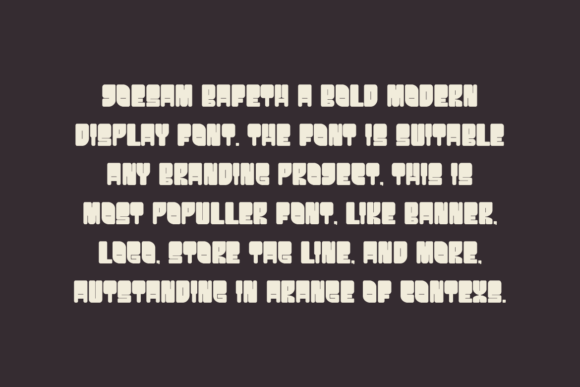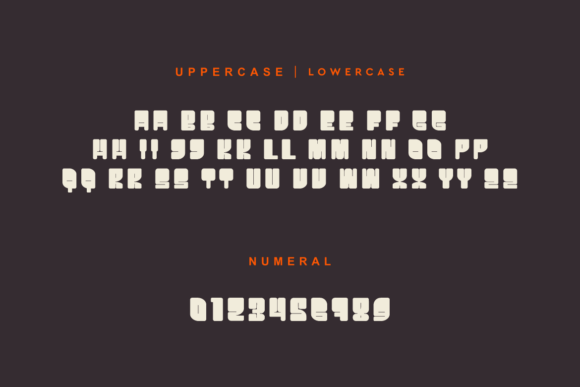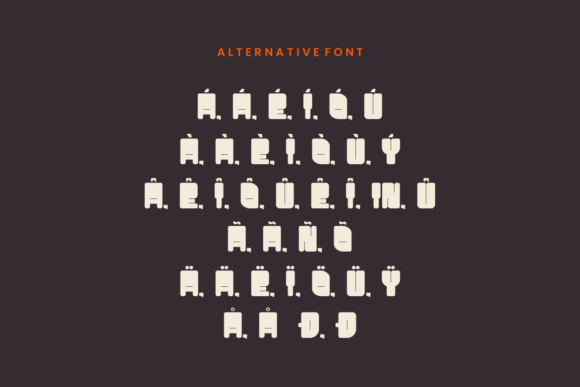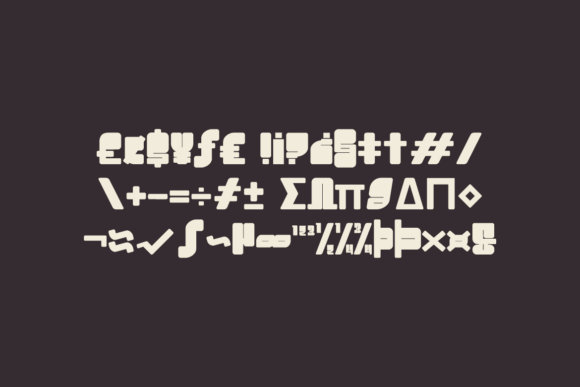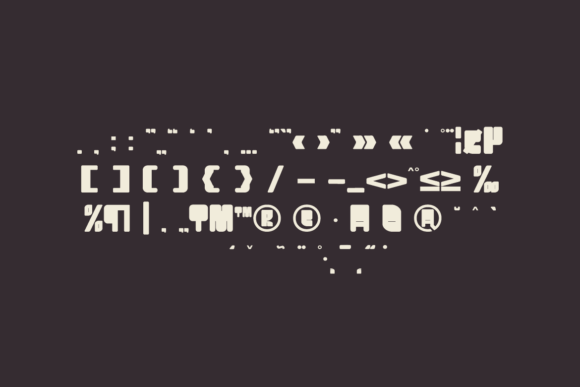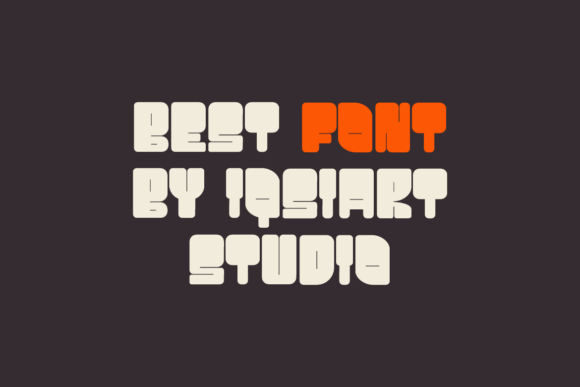
Introduction to Joesam Bafeth Font
Joesam Bafeth is a bold and assertive display font.
No matter the topic, this font will be an incredible asset to your fonts library, as it has the potential to elevate any creation .
Key Features of Joesam Bafeth Font
Why Choose Joesam Bafeth Font?
Joesam Bafeth Font offers exceptional quality and versatility, making it a valuable addition to your design toolkit. Whether you’re creating for personal projects or commercial use, Joesam Bafeth Font delivers professional results.